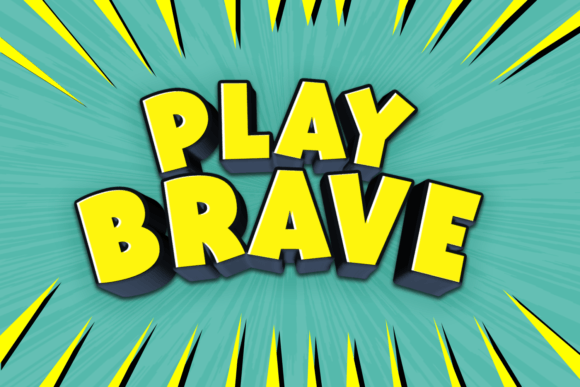
Unleash the playful spirit of your designs with Play Brave, an exhilarating cartoon-style display font that ignites joy and captivates imaginations. This thick and unique typeface is the ultimate choice for adding a touch of whimsy and fun to your creative endeavors, whether it's a whimsical book cover, an eye-catching poster, or a captivating headline.
With Play Brave, your typography will come alive with an infectious energy that draws attention and sparks conversations. Its bold and playful nature makes it ideal for crafting captivating product packaging, advertisements that pop, and greeting cards that deliver smiles. Each letter dances with personality, adding a touch of magic to your designs.
Step into a world of vibrant creativity with Play Brave, where your imagination takes center stage. Whether you're a designer, marketer, or simply a lover of all things playful, this font will become your go-to choice for adding a spark of joy to your projects.
Features:
- An array of playful characters that dance on the page.
- Support for multiple languages, ensuring global appeal.
- Crisp and clear font rendering for optimal readability.
- Perfect for a wide range of design applications.